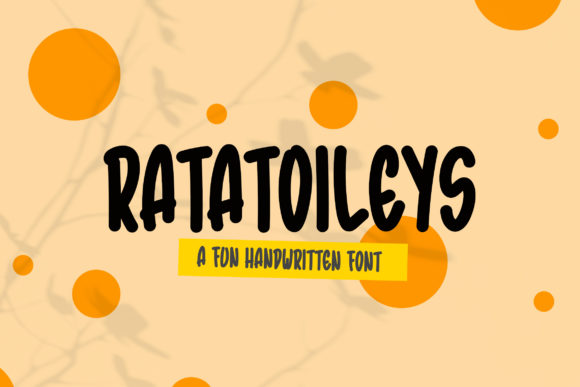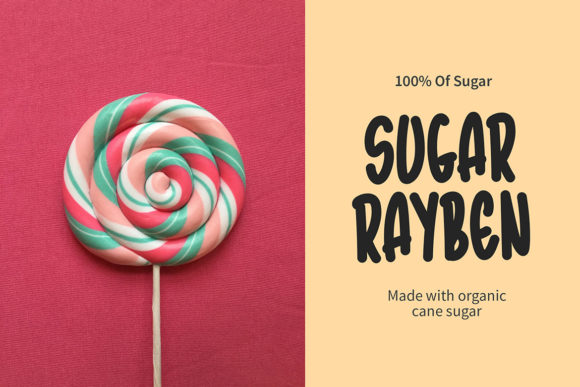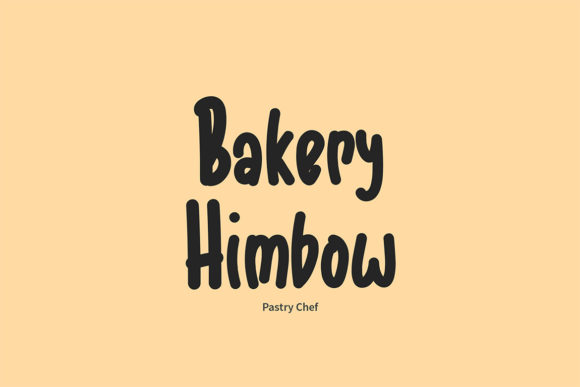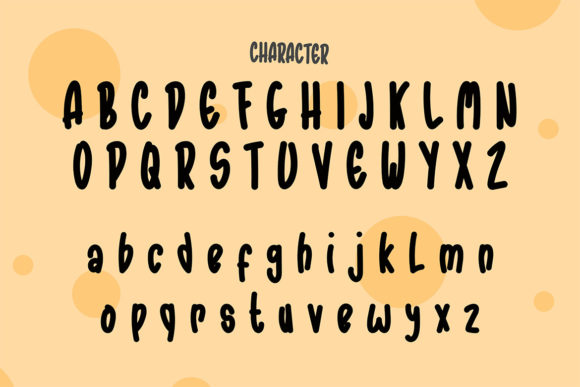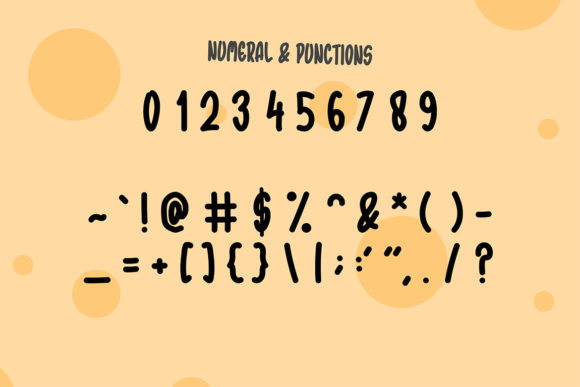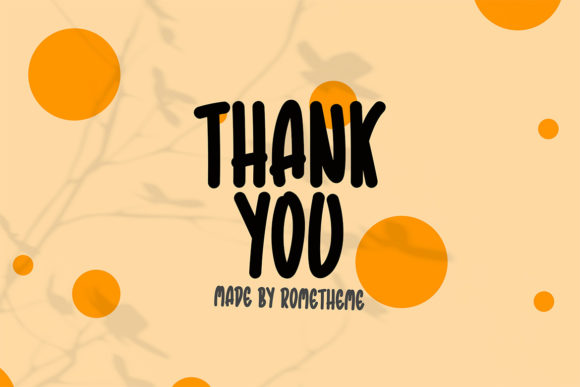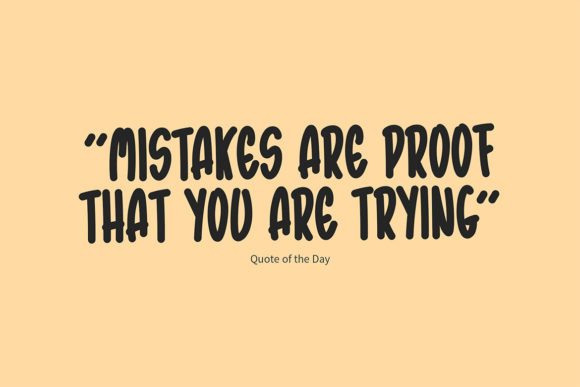
Ratatoileys Font
About Ratatoileys Font
Ratatoileys is a bold and playful handwritten font that brings a sense of fun and creativity to your designs. With its unique and expressive letterforms, Ratatoileys is a great choice for various projects, including fashion, apparel, branding, and more.
In the realm of fashion and apparel, Ratatoileys adds a touch of personality and style to your designs. Whether you’re creating t-shirt designs, fashion logos, or clothing labels, this font can infuse your creations with a sense of playfulness and uniqueness. Its bold and energetic strokes make a statement and can help your brand stand out in a competitive market.
When it comes to album covers and music-related projects, Ratatoileys offers a dynamic and eye-catching option. Its bold and fun style can capture the essence of different music genres and create a visually appealing cover that reflects the mood and vibe of the music. From pop to rock, Ratatoileys can add a touch of energy and excitement to your album artwork.
Logo design is another area where Ratatoileys can shine. Its bold and distinct letterforms make it easy to create memorable and impactful logos. Whether you’re designing for a creative agency, a children’s brand, or a playful startup, Ratatoileys can help you craft a logo that stands out and communicates your brand’s personality.
In the realm of branding and marketing, Ratatoileys can be a great asset. Its bold and expressive style can add a touch of liveliness and authenticity to your brand materials, such as business cards, brochures, and advertisements. It can also be used effectively in social media graphics, helping you create engaging and visually appealing posts that capture the attention of your audience.
While Ratatoileys excels in fashion, apparel, and branding projects, its versatility allows it to work well in other contexts too. Whether you’re designing magazine layouts, creating illustrations, or crafting social media content, Ratatoileys can add a playful and energetic touch to your designs.
When using Ratatoileys, consider experimenting with different letter spacing, sizes, and color combinations to create visually interesting compositions. The font’s bold nature allows for versatility in styling, and it can be paired with both serif and sans-serif typefaces to create balanced and harmonious designs.
Overall, Ratatoileys is a bold and fun handwritten font that brings a sense of playfulness and creativity to your designs. From fashion and branding to album covers and social media graphics, this font can help you make a statement and leave a lasting impression. Embrace Ratatoileys’ bold strokes and let it inspire you to create exciting and vibrant designs.